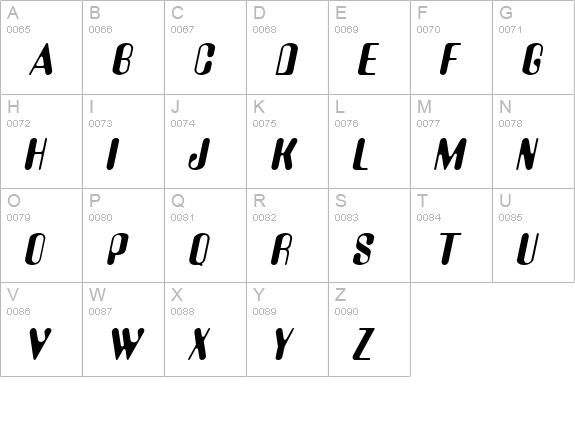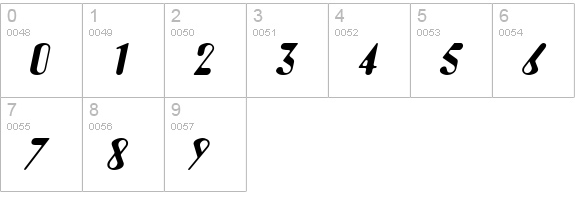
Amos Italic is a distinctive, italic variant in the Amos typeface family \xE2\x80\x94 well suited to design and typography projects.
Amos Italic font is a stunning and versatile typeface that exudes elegance and sophistication. With its sleek and flowing design, this font is perfect for adding a touch of style to any project. The italic style adds a unique flair, making it ideal for use in headings, titles, and other design elements where you want to make a statement. Best of all, the Amos Italic font is available for free download at FontsMarket.com. This means you can easily access and use this beautiful font in your projects without any cost. Whether you're working on a personal or professional project, Amos Italic font is sure to elevate your design and leave a lasting impression. Download it today and add a touch of class to your creations!